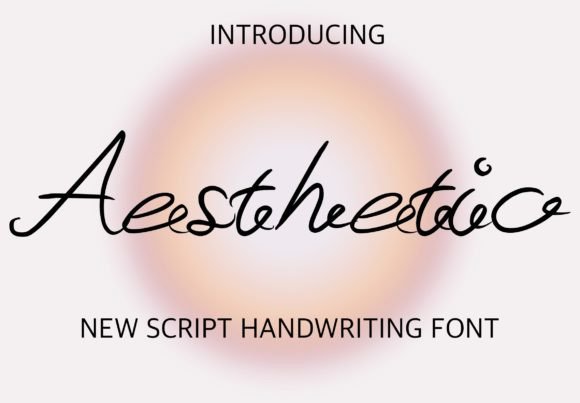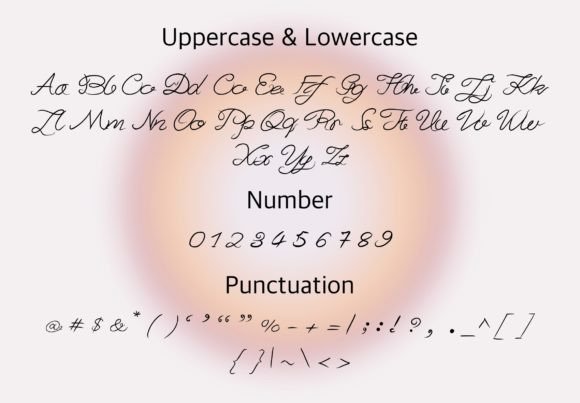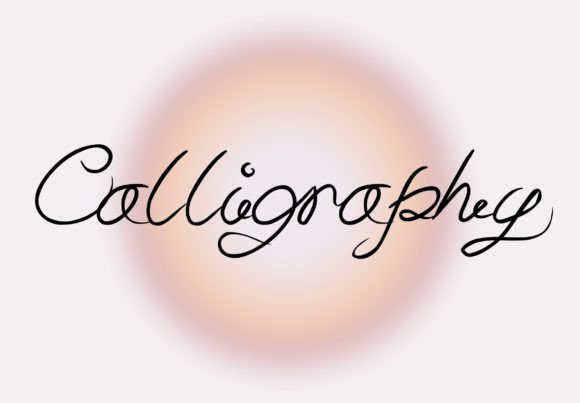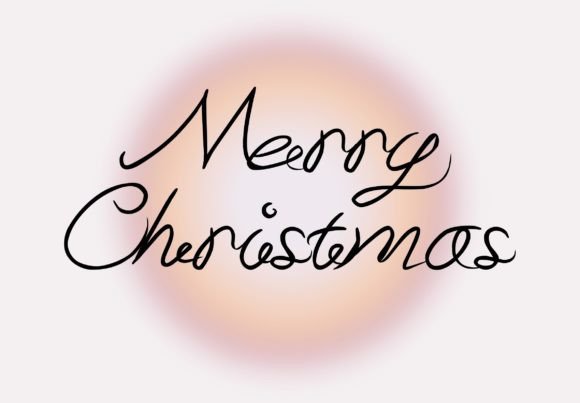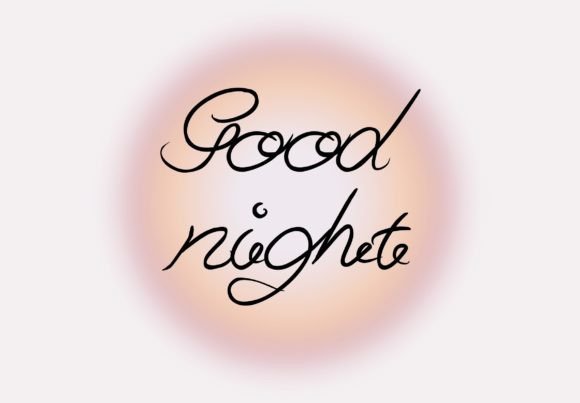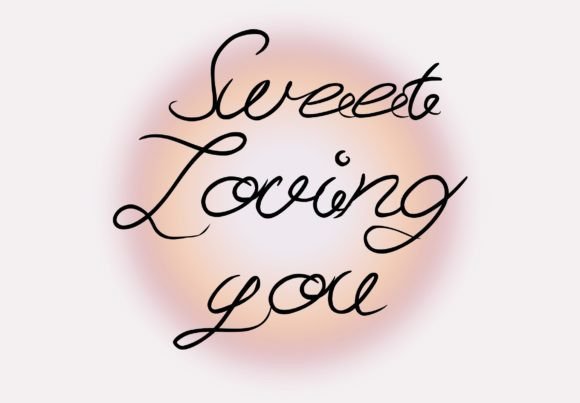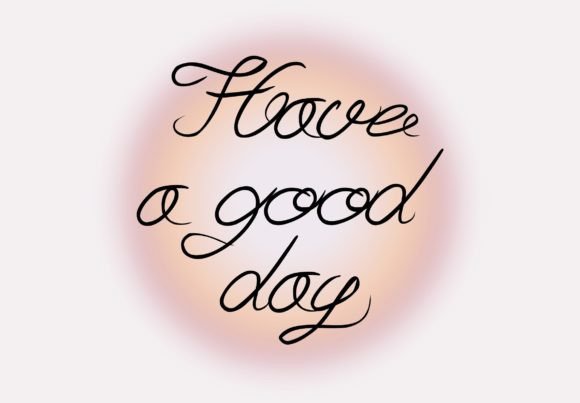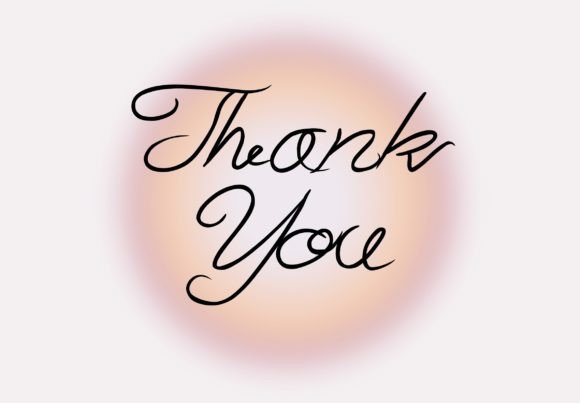
Aesthetic Font
About Aesthetic Font
**”Aesthetic”** is a charming script font that offers versatility and aesthetic appeal for a wide range of design projects. This lovely font is well-suited for various applications, making it a valuable choice for creative endeavors such as wedding invitations, Christmas projects, wall displays, social media posts, logos, T-shirts, posters, product designs, stationery, and more.
For wedding invitations, **”Aesthetic”** adds a touch of elegance and romanticism. Its script style enhances the overall aesthetic of wedding stationery, setting the tone for a beautiful celebration.
In the context of Christmas projects, this font complements the festive spirit with its lovely and inviting appearance. Whether it’s for greeting cards, decorations, or holiday-themed designs, **”Aesthetic”** adds a warm and charming quality.
Invitations for various occasions benefit from the beauty of **”Aesthetic.”** Whether it’s for parties, events, or special gatherings, this font adds a touch of sophistication and personality to your invitation designs.
Social media posts and content become more visually appealing with the use of **”Aesthetic.”** It adds a stylish and eye-catching element to your posts, helping you engage your audience effectively.
Logos created with **”Aesthetic”** convey a sense of elegance and uniqueness. Its script style adds a personalized and artistic touch to brand identities, making them memorable and distinctive.
T-shirt designs and posters take on a trendy and fashionable look with the use of this font. It adds a touch of style and creativity to these products, making them more appealing to consumers.
In summary, **”Aesthetic”** is a lovely script font that excels in enhancing the visual appeal of a wide range of design projects. Its versatility, elegance, and aesthetic charm make it a valuable tool for designers and creatives looking to add a touch of sophistication and beauty to their work across various applications.